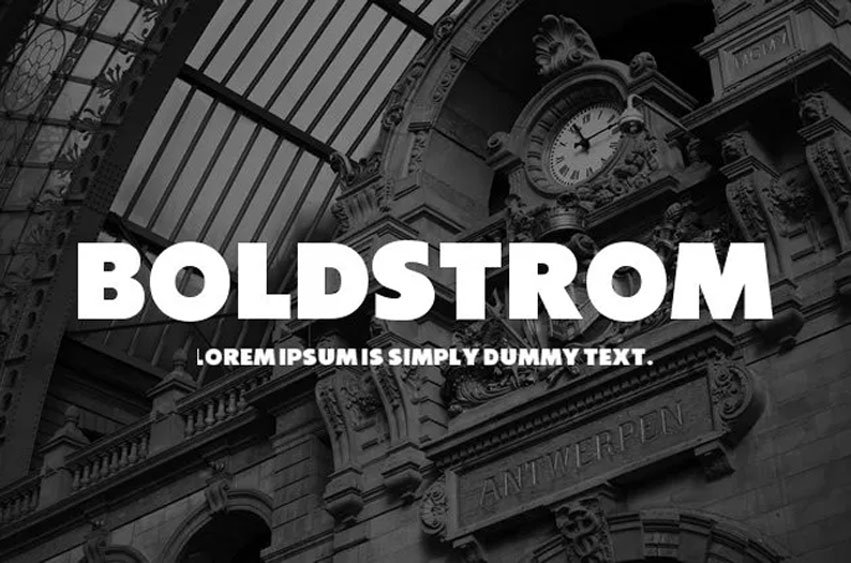
Boldstrom Font
Boldstrom Font is a bold and pragmatic display font. Perfect for quotes, Vlogger previews, logotype designs, fashion web banners, musician song promotion, cafe or restaurant promotions and much more.
Boldstrom will make your idea absolutelly stand out! Integrate this font into your creativity for the enhanced creativity and notice the results of its impact!